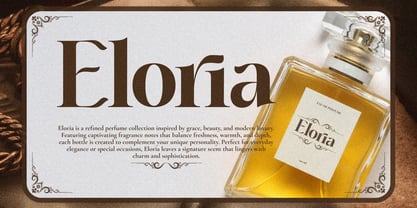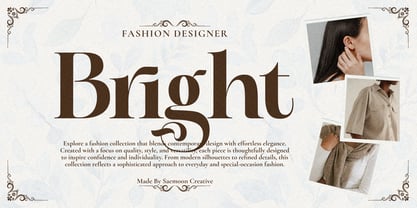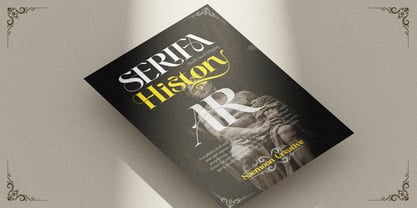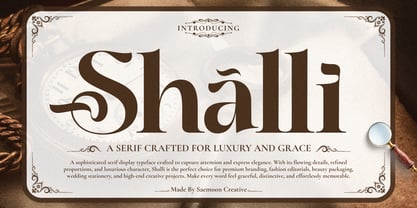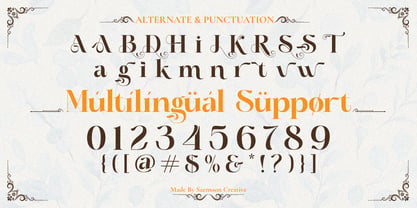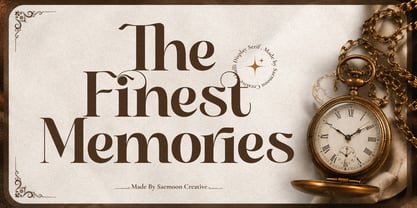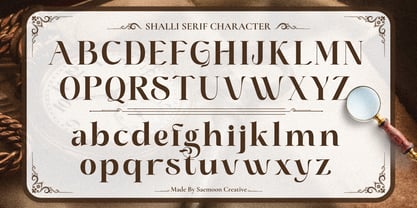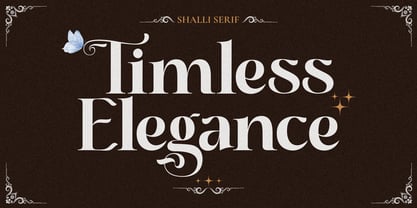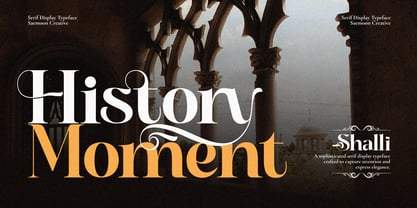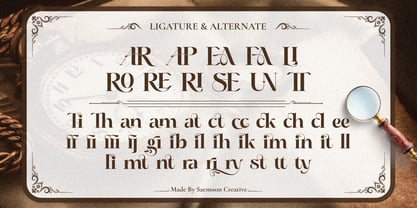
Shalli
by Saemoon Creative
The Shalli Font Family was designed by Sapto Susilo and published by Saemoon Creative. Shalli contains 2 styles and family package options. More about this family
Shalli – Luxury Serif Display Font
Shalli is a sophisticated serif display typeface designed to bring timeless elegance and luxurious charm to every creative project. Featuring graceful curves, refined high-contrast strokes, and beautifully crafted swashes, Shalli creates a distinctive visual presence that feels both classic and contemporary.
Inspired by the aesthetics of premium fashion, fine jewelry, and editorial design, Shalli is perfect for designers who want to create memorable typography with a sense of prestige. Every character has been carefully balanced to deliver exceptional readability while maintaining its decorative beauty.
Whether you're designing a luxury logo, wedding invitation, cosmetic packaging, or an elegant magazine layout, Shalli adds a graceful personality that elevates your work instantly.
Perfect For
• Luxury Branding
• Fashion Editorials
• Beauty & Cosmetic Packaging
• Wedding Invitations
• Boutique Logos
• Perfume & Jewelry Branding
• Book Covers
• Social Media Graphics
• Premium Product Packaging
• High-End Advertising
Features
• Uppercase & Lowercase
• Numerals & Punctuation
• Multilingual Support
• Stylistic Alternates
• Elegant Swashes
• Ligatures
Shalli is more than just a typeface—it is a statement of elegance, crafted to help your designs leave a lasting impression with sophistication and style.
Designers: Sapto Susilo
Foundry: Saemoon Creative